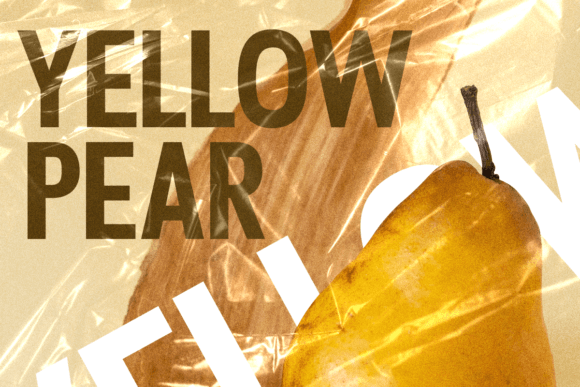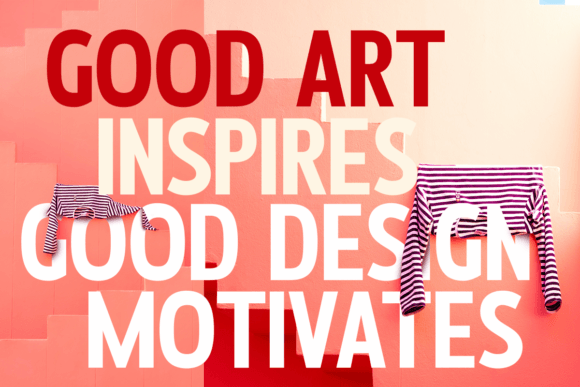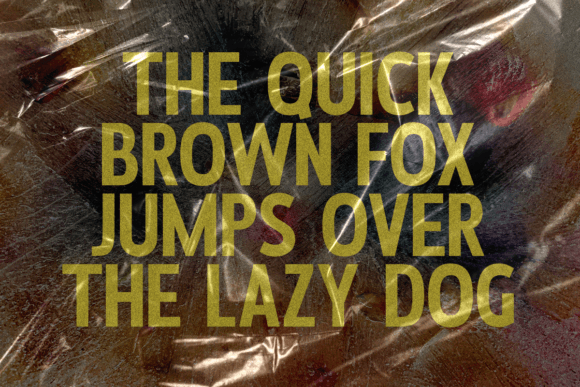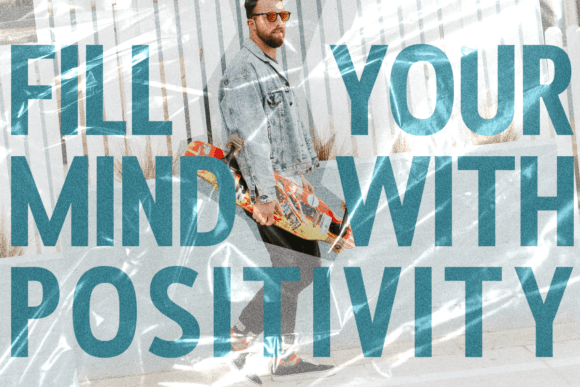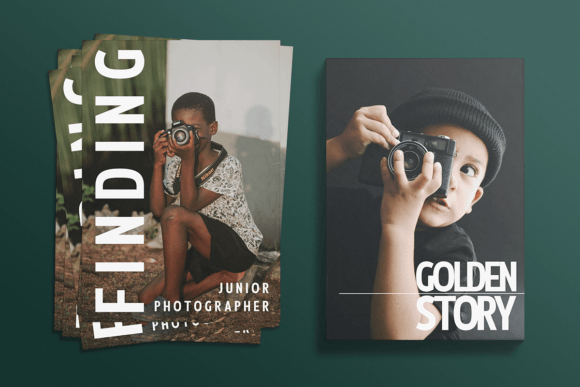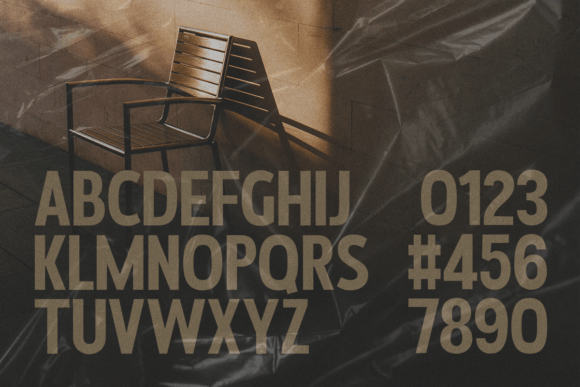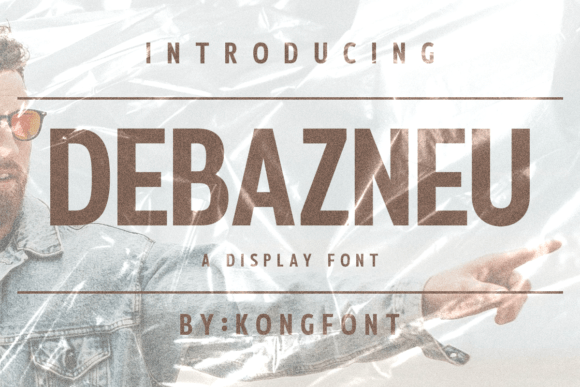
Introducing Debazneu Font: Elevate Your Designs with Modern Sophistication
Are you looking for a font that can add a touch of modernity and sophistication to your designs? Look no further than Debazneu, a sleek and contemporary sans serif font that’s perfect for a wide range of projects. From branding and logos to web design and print materials, Debazneu is the ideal choice for designers and crafters who want to elevate their work.
Clean Lines and Modern Aesthetic
Debazneu’s clean lines and modern aesthetic make it a versatile font that’s suitable for both headlines and body text. Its highly readable and visually appealing design ensures that your message gets across clearly, whether you’re creating a logo, website, or print material. With Debazneu, you can add a professional touch to your designs and make them stand out from the crowd.
One of the best things about Debazneu is that it’s PUA (Private Use Area) encoded, which means you can access all of the cute glyphs and swashes with ease. This feature makes it easy to add a personal touch to your designs and create unique and eye-catching text. Whether you’re a professional designer or a crafty DIY enthusiast, Debazneu’s PUA encoding makes it easy to get the most out of this amazing font.
Debazneu is a highly versatile font that’s perfect for a wide range of projects, including:
- Branding and logos: Create a professional and memorable brand identity with Debazneu’s clean and modern design.
- Web design: Use Debazneu to create visually appealing and highly readable website text that’s perfect for headers, paragraphs, and more.
- Print materials: Add a touch of sophistication to your print materials, such as brochures, flyers, and business cards, with Debazneu’s elegant design.
Why Choose Debazneu?
So why choose Debazneu over other fonts? Here are just a few reasons:
- Unique and modern design: Debazneu’s sleek and contemporary design makes it stand out from other fonts.
- Highly readable: Debazneu’s clean lines and simple design make it easy to read, even at small sizes.
- Versatile: Debazneu is perfect for a wide range of projects, from branding and logos to web design and print materials.
- PUA encoded: Debazneu’s PUA encoding makes it easy to access all of the cute glyphs and swashes.
If you’re looking for a font that can add a touch of modernity and sophistication to your designs, look no further than Debazneu. With its clean lines, modern aesthetic, and PUA encoding, Debazneu is the perfect choice for designers and crafters who want to elevate their work. So why wait? Download Debazneu today and start creating stunning designs that will leave a lasting impression.
Key Features of Debazneu Font
- Modern sans serif font
- Clean lines and simple design
- Highly readable and visually appealing
- Perfect for branding, logos, web design, and print materials
In conclusion, Debazneu is a highly versatile and modern sans serif font that’s perfect for designers and crafters who want to elevate their work. With its clean lines, modern aesthetic, and PUA encoding, Debazneu is the ideal choice for a wide range of projects. So why wait? Download Debazneu today and start creating stunning designs that will leave a lasting impression.